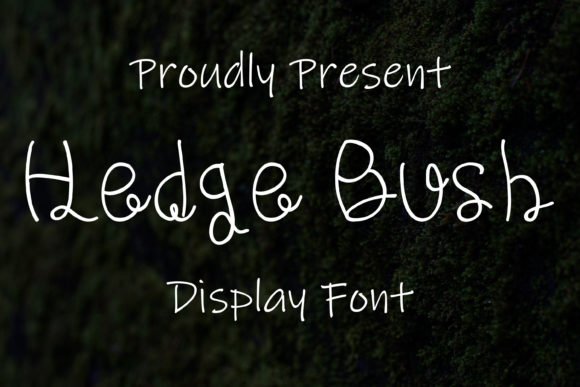
Discover the Whimsy of Hedge Bush Font
There’s something magical about stumbling upon a new font that sparks your creativity and sets your imagination ablaze. For designers, this moment is like finding a treasure trove of inspiration, and it’s exactly what happens when you discover the Hedge Bush Font. This fun script font is designed to add a touch of personality to your designs, making it perfect for a wide range of projects.
Whether you’re working on a branding project, creating a social media campaign, or designing a wedding invitation, the Hedge Bush Font is a valuable addition to your toolkit. Its playful and elegant style makes it versatile and easy to use, allowing you to explore its endless possibilities and bring your designs to life.
- Unique Characteristics: This font features a unique blend of modern and traditional design elements, with intricate details and subtle texture.
Hedge Bush Font Review
I recently had the chance to work with the Hedge Bush Font, and I must say, it’s a unique and interesting addition to any design project. Here are my honest thoughts on this font:
- The Hedge Bush Font has a quirky, hand-drawn feel that can add a lot of personality to your designs.
- It’s perfect for projects that need a touch of whimsy or a more relaxed, casual vibe.
- The font is highly legible, even at smaller font sizes, making it a great choice for body text or titles.
- The font’s irregularities and imperfections can add a sense of charm and character to your designs.
- The Hedge Bush Font may not be the best choice for projects that require a more professional or formal tone.
- The font’s unique style may not appeal to everyone, and some users may find it too busy or distracting.
- The font’s irregularities can sometimes make it difficult to read, especially for users with vision impairments.
The Hedge Bush Font is a great choice for designers who want to add a touch of personality and whimsy to their projects. While it may not be suitable for every project, it’s a unique and interesting addition to any design toolbox. With its quirky feel and high legibility, the Hedge Bush Font is definitely worth considering for your next design project.
The Hedge Bush Font is a beautiful, handwritten font perfect for:
- Handmade product labels and packaging
- Personalized gifts and cards
- Blog and social media graphics
For optimal results, use the Hedge Bush Font in combination with elegant graphics and minimalist design elements.
Compared to Hedge Bush Font, Great Vibes is more elegant and refined. While Hedge Bush Font has a more rustic feel, Great Vibes is more polished and sophisticated.
Compared to Hedge Bush Font, Pacifico is more modern and relaxed. While Hedge Bush Font has a more rustic feel, Pacifico is more laid-back and casual.